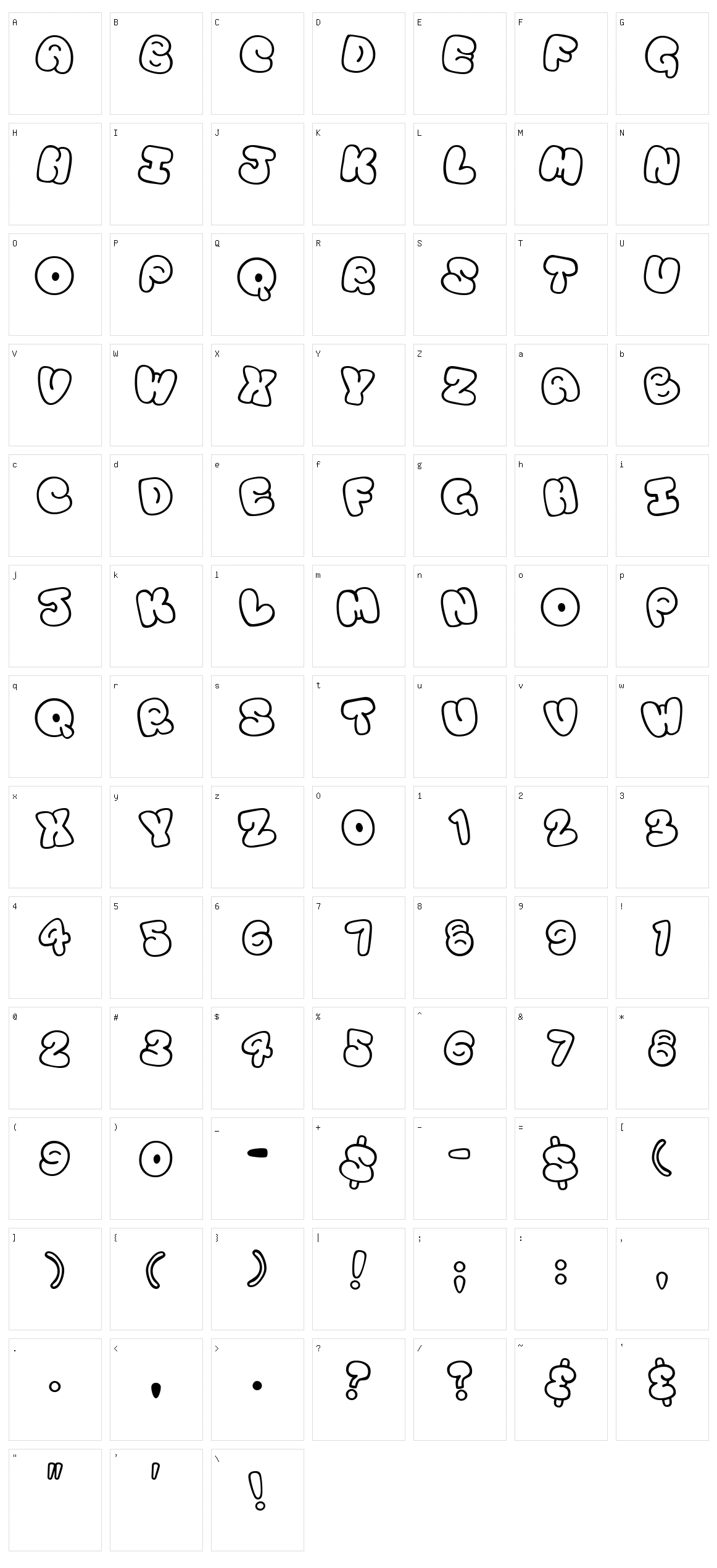
Tourist Trap is my effort at the type of lettering used on those
great t-shirts that Grandma buys the little tykes in Fort Walton
Beach or Gatlinburg. Both the outline and the "fill" are included
in the same font. And with the iron-on transfer paper now available
for you home ink jet printer, you can now make the shirts at home
without spending the money or the hours behind the wheel to actually
take the kids on vacation.